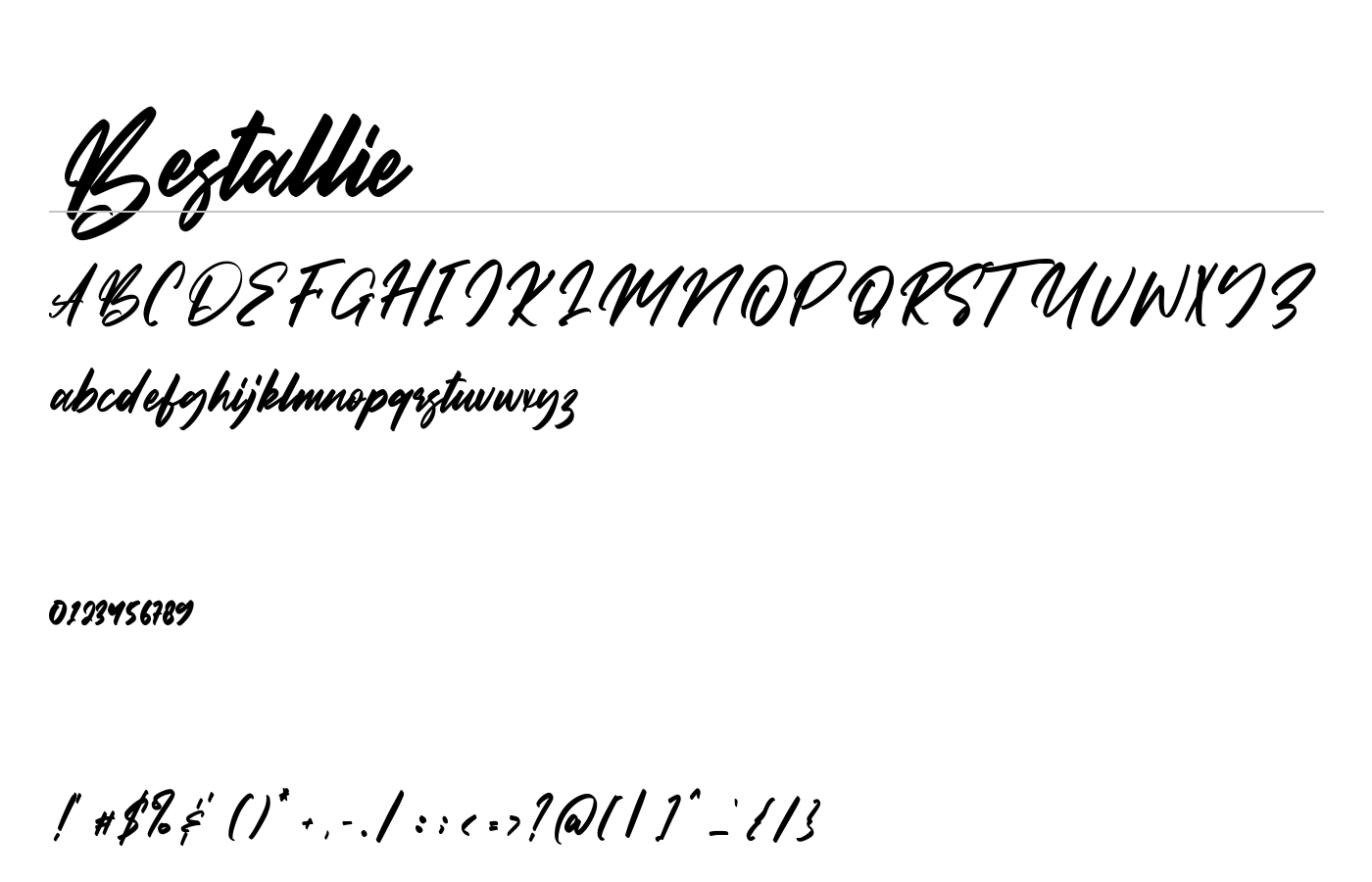
Bestallie Font is an elegant script typeface with a smooth, flowing style that mimics natural handwriting. It features a bold weight with moderate contrast and slightly condensed letterforms that create a dynamic, friendly feel, making it ideal for branding, invitations, and stylish headlines. This font’s expressive yet readable characters bring a modern, personal touch to any design in need of a sophisticated, approachable vibe.
Bestallie Font
About Bestallie Font
| Font family | Bestallie Font |